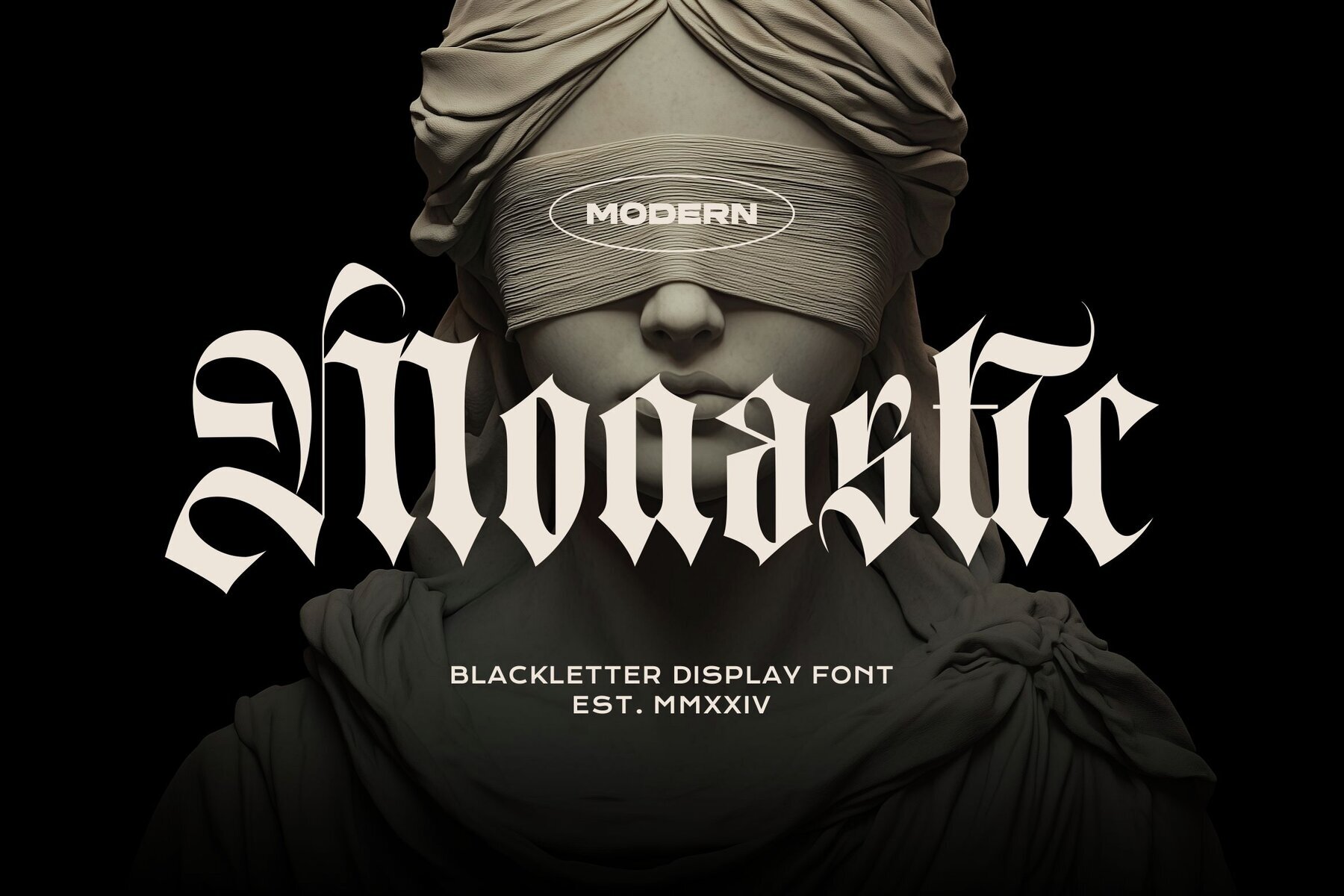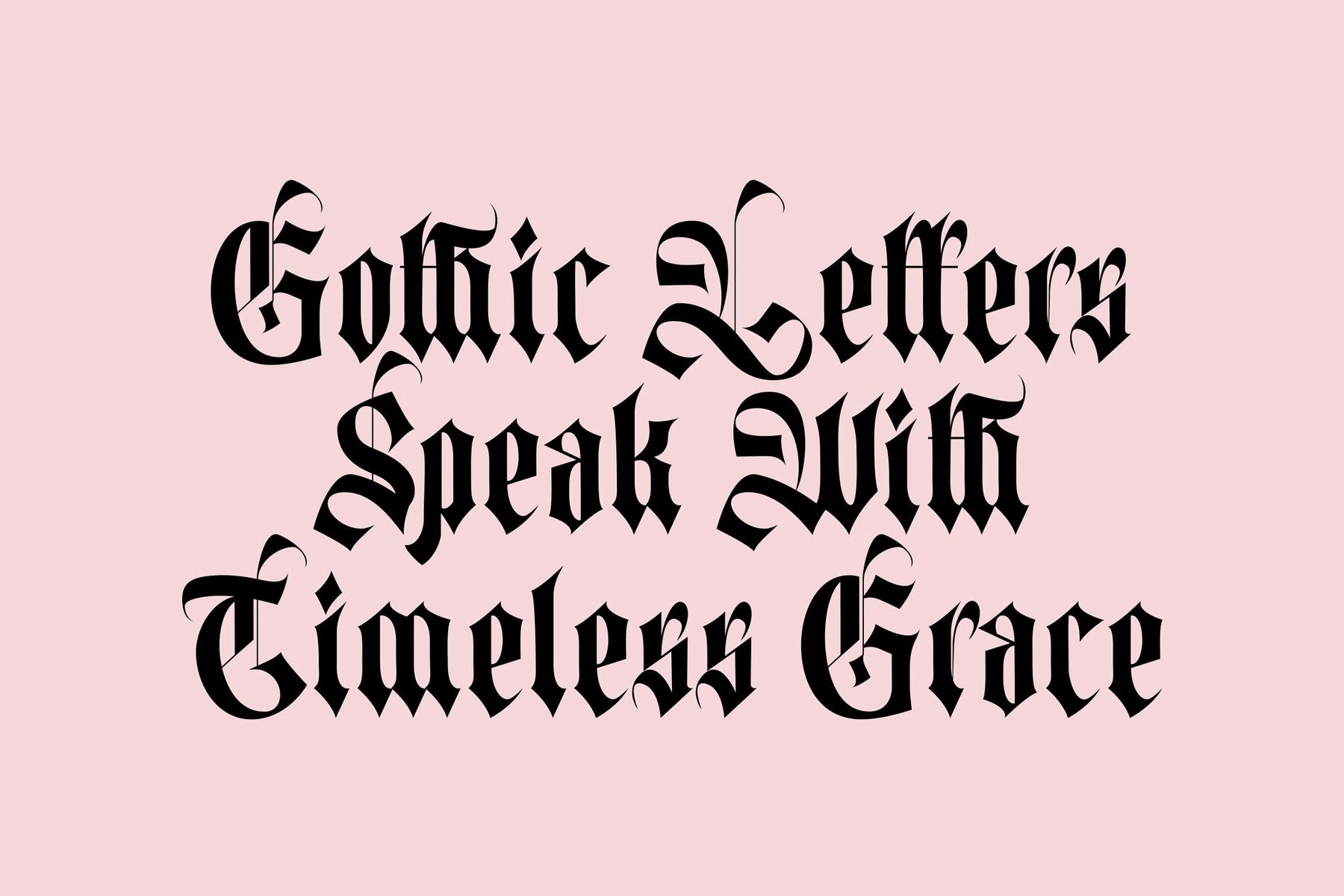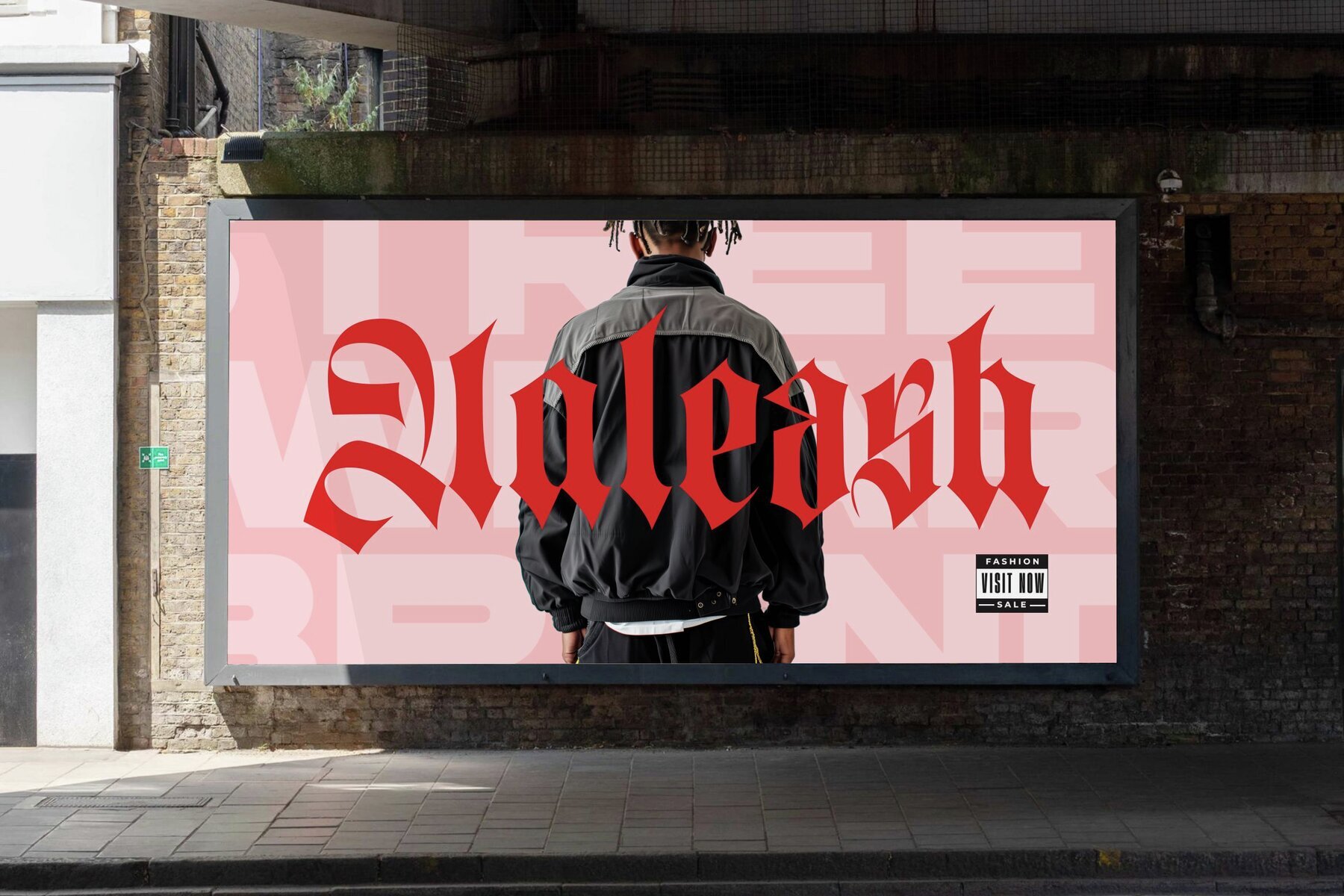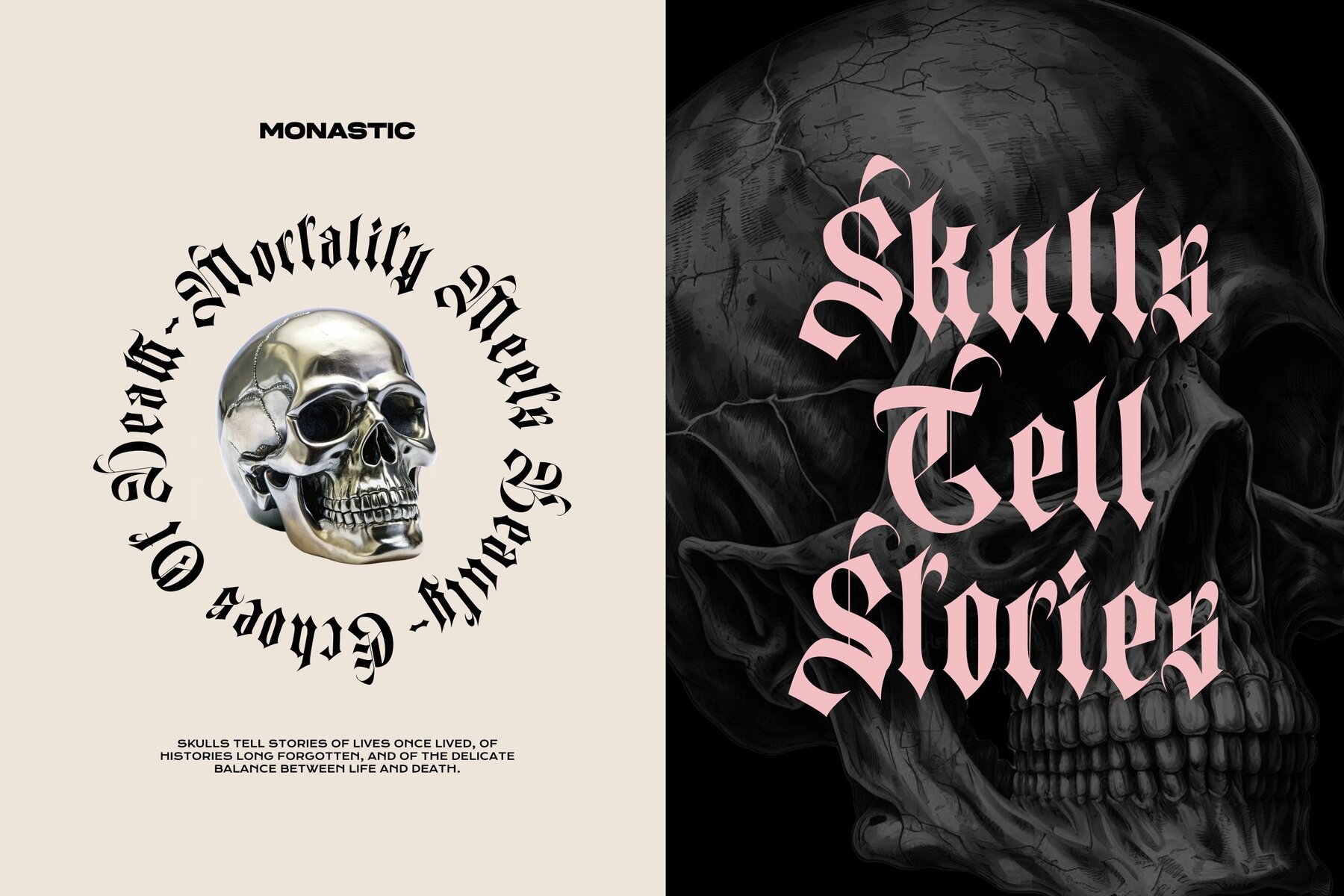
Monastic Font
Monastic Regular
The Monastic typeface embodies the essence of traditional Gothic style, characterized by its blackletter design. Its bold, angular strokes coupled with dramatic contrasts create a striking visual reminiscent of medieval script. The sharp edges and intricate details, particularly in the capitals, render a refined, formal appearance. Ideal for designs that evoke history, luxury, or tradition, Monastic complements a wide array of projects. It shines in branding, invitations, editorial headlines, and fashion, especially when aiming for a blend of heritage and modernity. This typeface adds a sophisticated charm to any creative venture.Monastic: Vintage Gothic Typeface